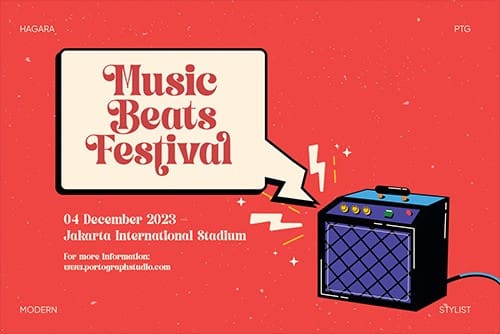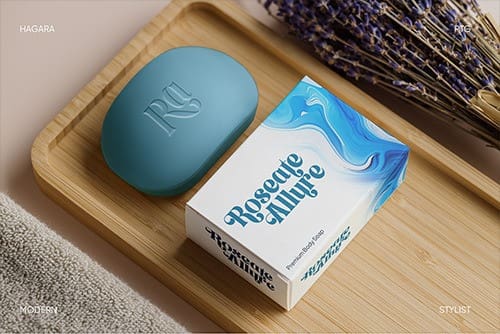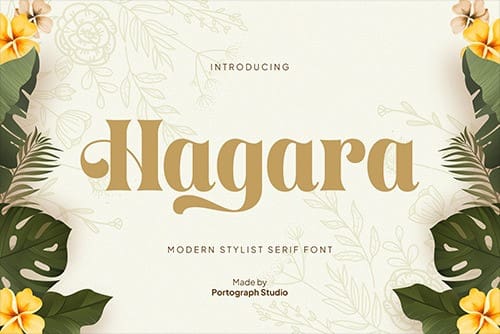
PTG Hagara Font
PTG Hagara Font, This typeface has a unique and attractive appearance. PTGHagara looks great when combined with solid character fonts.
For branding projects, logos, wedding designs, social media posts, advertisements, product packaging, product designs, labels, photography, watermarks, invitations, stationery, and anything requiring handwritten taste, PTGHagara is perfect.